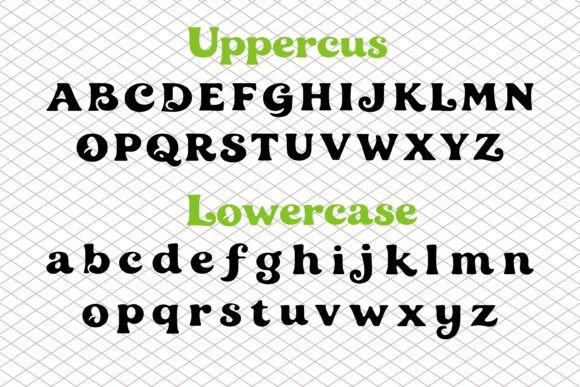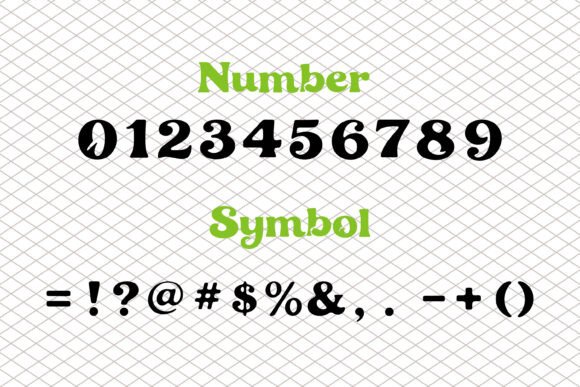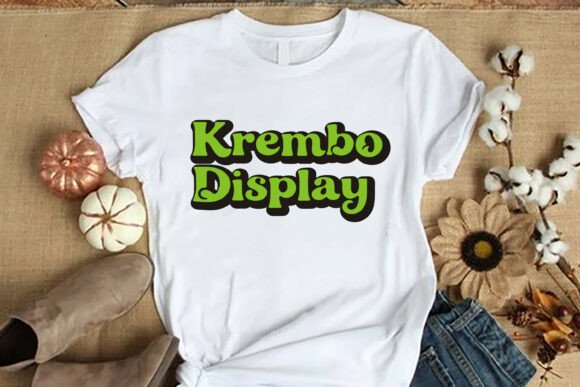
Introduction to Krembo Display Font
Remember that moment when you stumbled upon the perfect font to elevate your design project? The thrill of seeing your creative vision come to life, and the sense of satisfaction that comes with it? For designers, finding the right font can be a game-changer. It’s what sets your work apart, adds an extra layer of personality, and makes it truly unforgettable.
Enter the Krembo Display Font, a vibrant and whimsical design resource that’s sure to captivate your audience. With its playful nuances and high-quality design, this font is perfect for adding an enchanting touch to your creative project. Whether you’re working on a powerful branding campaign, a dynamic logotype, or a head-turning headline, the Krembo Display Font is an excellent choice. And the best part? It’s available for free download, making it an accessible and valuable resource for designers of all levels.
So, are you ready to discover the magic of the Krembo Display Font and take your designs to the next level?
Key Features of Krembo Display Font
- High-quality, professional design suitable for various creative projects, including branding, advertising, and packaging.
- Features a unique, bold design that makes it perfect for adding a touch of personality to your creative project.
Honest Review: Krembo Display Font
As a designer, I’ve had the pleasure of working with various fonts, and I must say, Krembo Display Font is a great addition to my design resource library. This high-quality font is perfect for creative projects that require a bold and eye-catching look.
Here’s what works well with Krembo Display Font:
- ✨ Unique and modern design that’s sure to grab attention
- ✨ High-quality glyphs that look great on both light and dark backgrounds
- ⚠️ Limited language support, which may be a concern for designers working on international projects
- ⚠️ Not as versatile as some other display fonts, which may limit its use in certain creative projects
Overall, I’m impressed with Krembo Display Font and would recommend it to designers looking for a high-quality display font for their creative projects. With its unique design and transparent background, it’s a great choice for designers who want to add a touch of modernity to their work.
Use the Krembo Display Font to add a touch of elegance to your design. Experiment with different font sizes, colors, and styles to create a unique and eye-catching look. You can also use the font in conjunction with other design elements to create a cohesive and professional design.
The Krembo Display Font is ideal for use in creative projects such as logo designs, branding materials, and marketing materials. It’s also great for use in presentations, documents, and websites where a high-quality font is required.